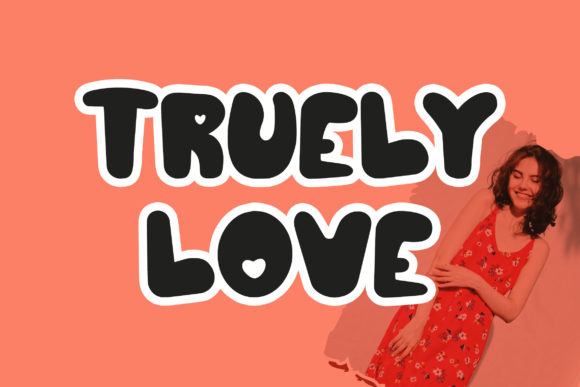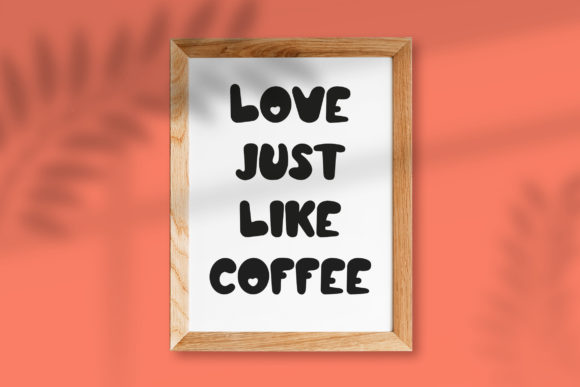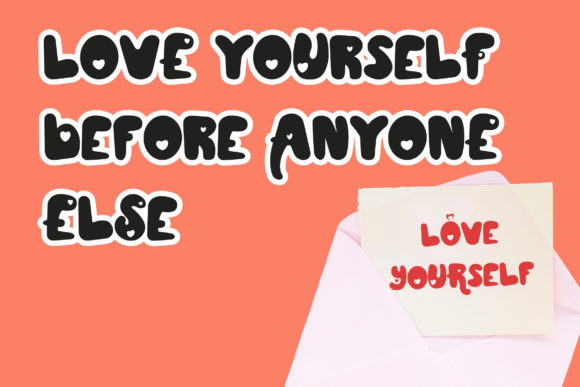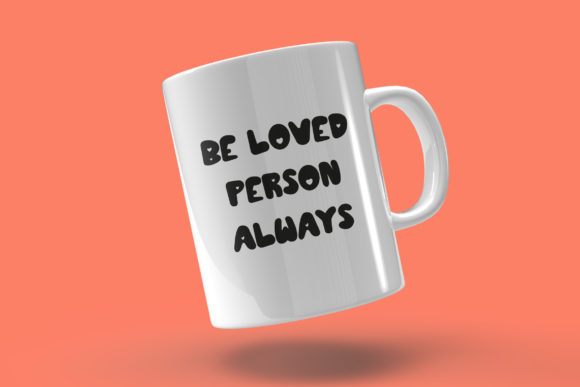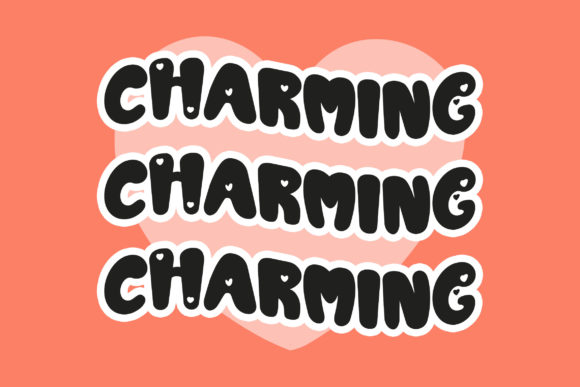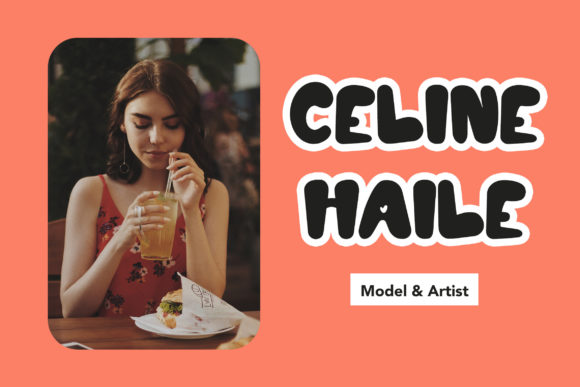
Introduction to Smiling Love Font
Smiling Love is a bold and cool display font.
It is PUA encoded which means you can access all of the amazing glyphs and ligatures with ease Add it to each of your party invitation, swimming gathering or pretty much any design that requires a touch of youth and joy.